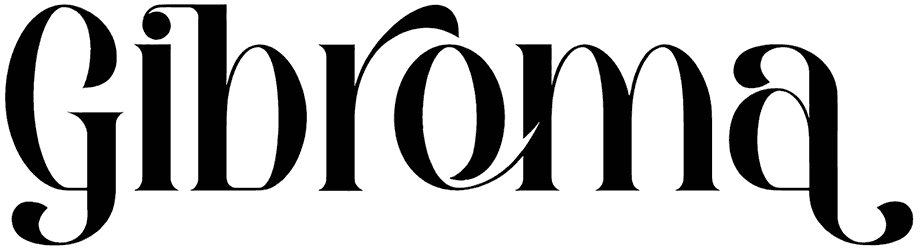
Gibroma Font
Gibroma font has been around for a long time and offers timeless quality. For this reason, it helps you create durable and versatile projects and always stays in fashion.
This serif font has a classic and timeless look that looks brilliant in printed materials and digital designs, and adds an element of sophistication and class to your designs. So if you want to add classic elegance to your posters, ads, and website, Gibroma can capture the mood you want.